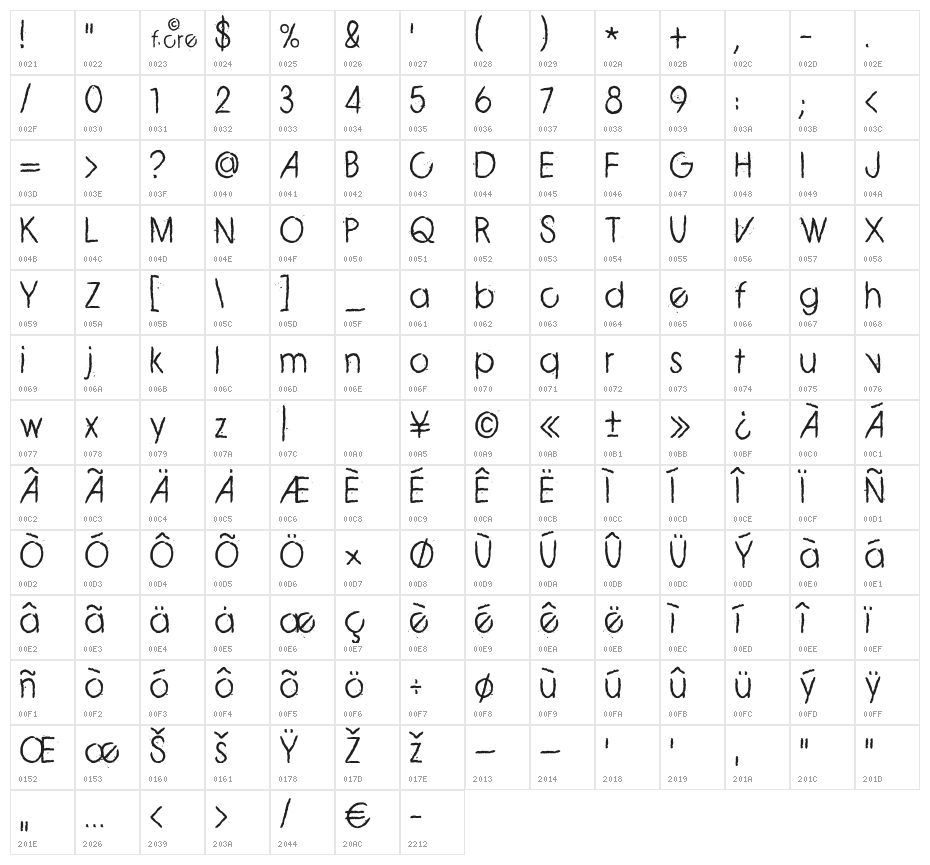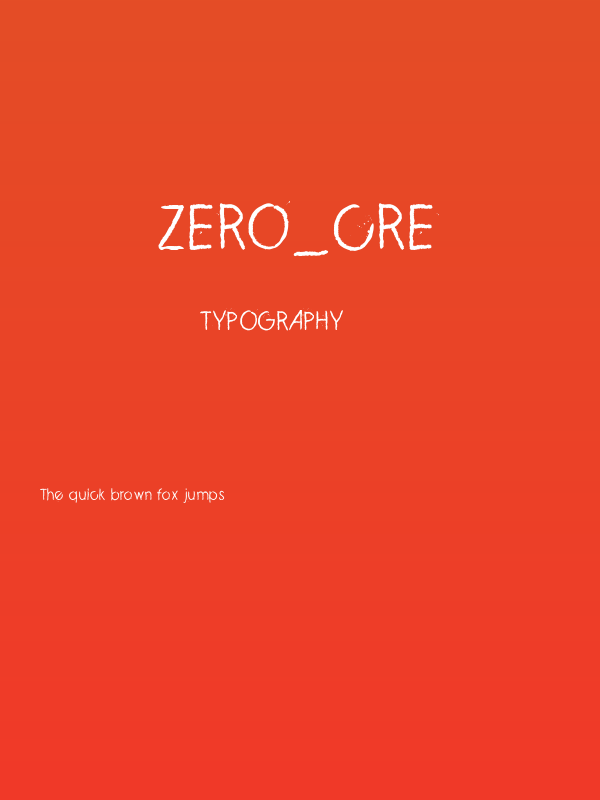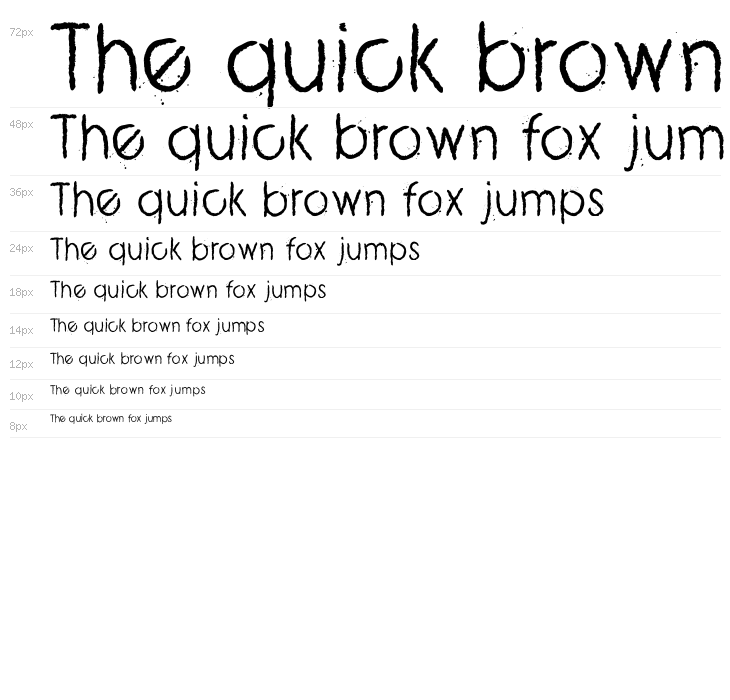
ZERO_CRE Font
ZERO_CRE Description
This font features a hand-drawn, rustic style with a slightly uneven and organic appearance. The characters have a playful and informal feel, with a consistent stroke width that gives it a cohesive look. The uppercase and lowercase letters are well-proportioned, maintaining a casual yet legible form. Numbers and special characters follow the same aesthetic, ensuring uniformity across all glyphs. The texture of the strokes suggests a chalk or crayon-like effect, adding to its charm and uniqueness. This font is ideal for projects that require a personal touch or a handcrafted vibe.
Use CaseLogos, Headlines, Creative projects
Proposed ProjectsIdeal for greeting cards, children's books, DIY projects, and creative branding.